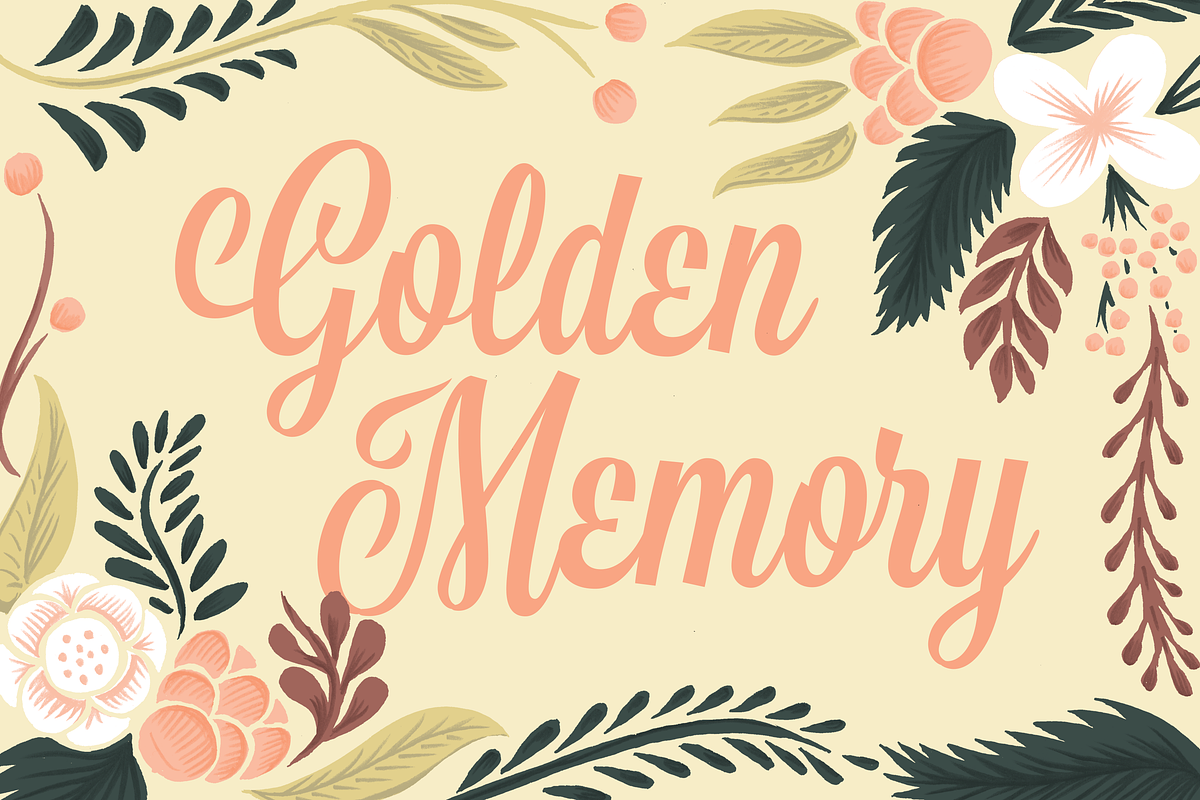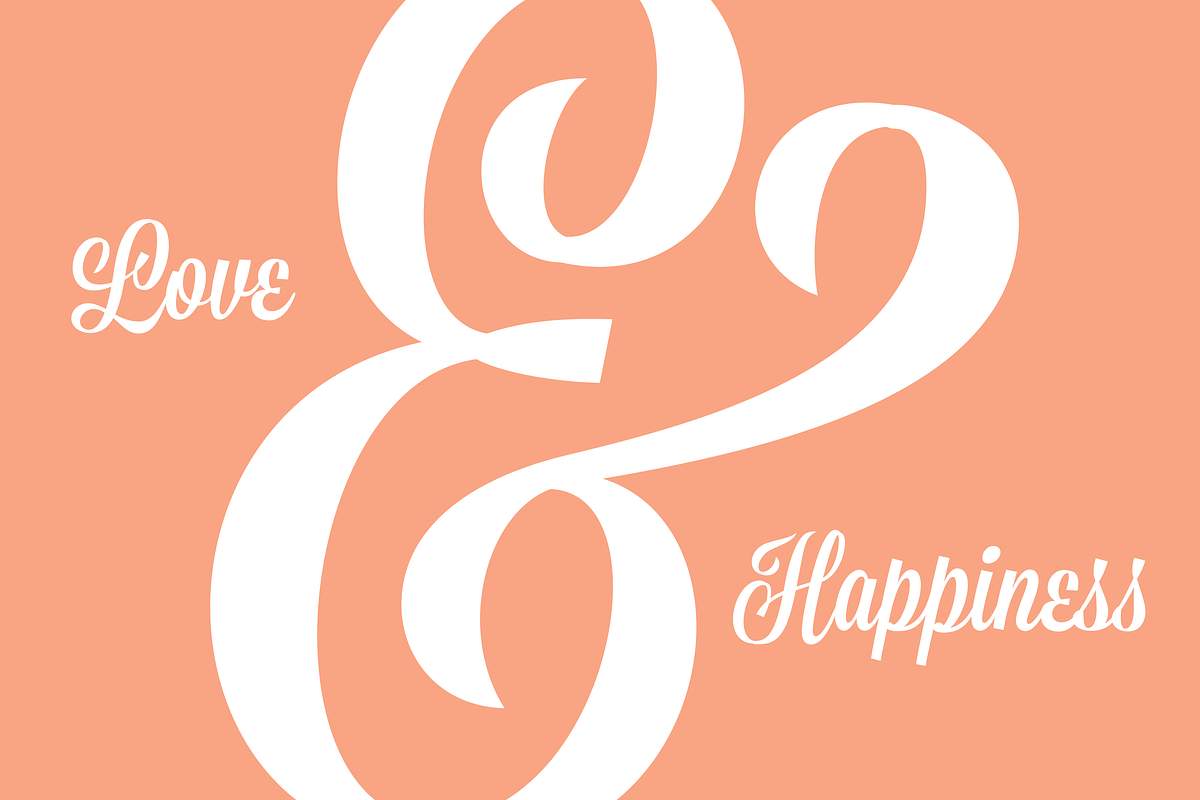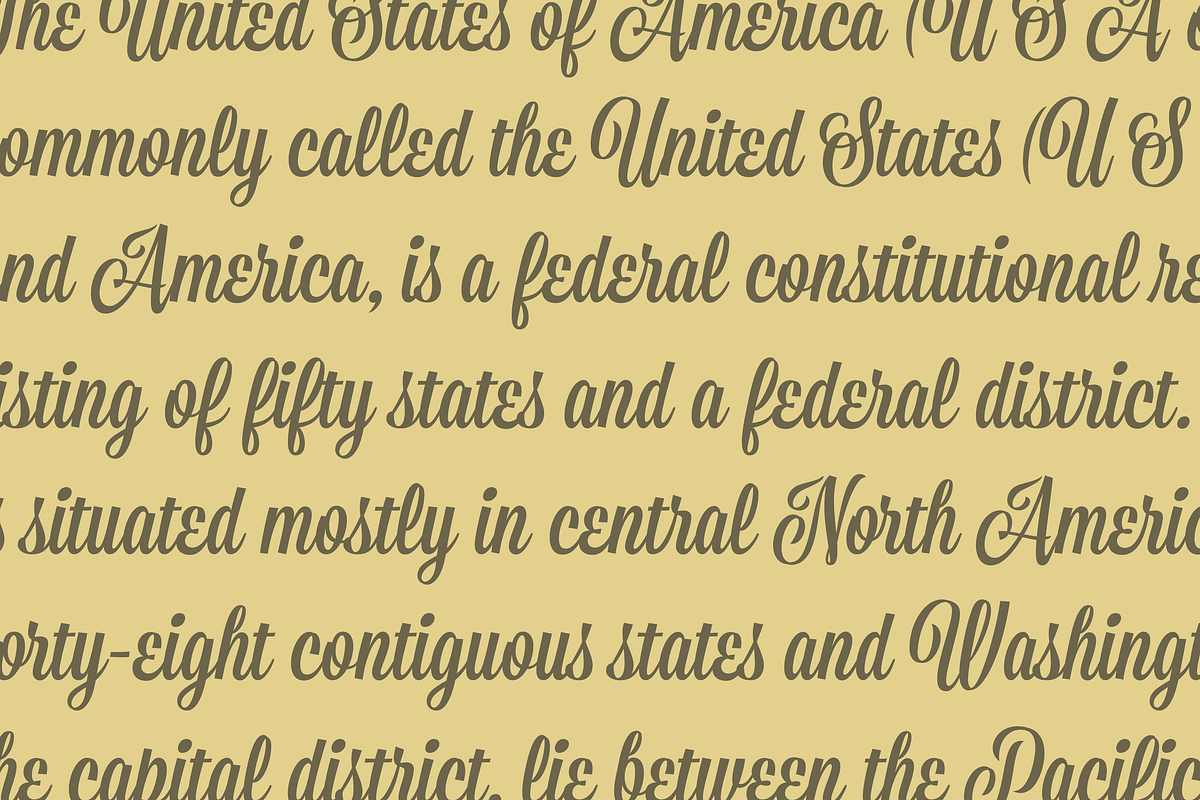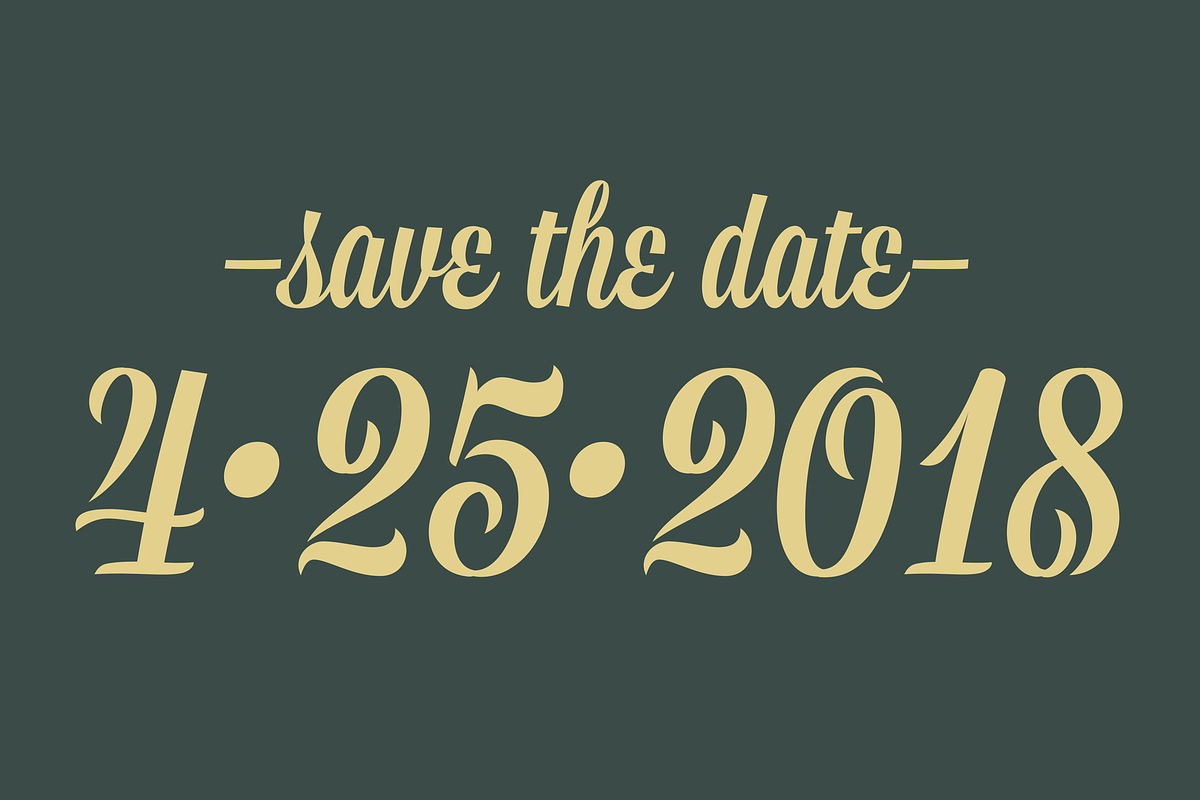
Golden Memory
Golden Memory is designed specifically for weddings, and other personal events you want to truly remember! The capitals are fancy enough to make words exciting, but not so ornate that they become hard to read. The numbers also like to show off and have a good time. Golden Memory is for the moment we want to cherish most!
Golden Memory by Golden Doodle Fonts fits naturally into Branding, posters, packaging, typography.